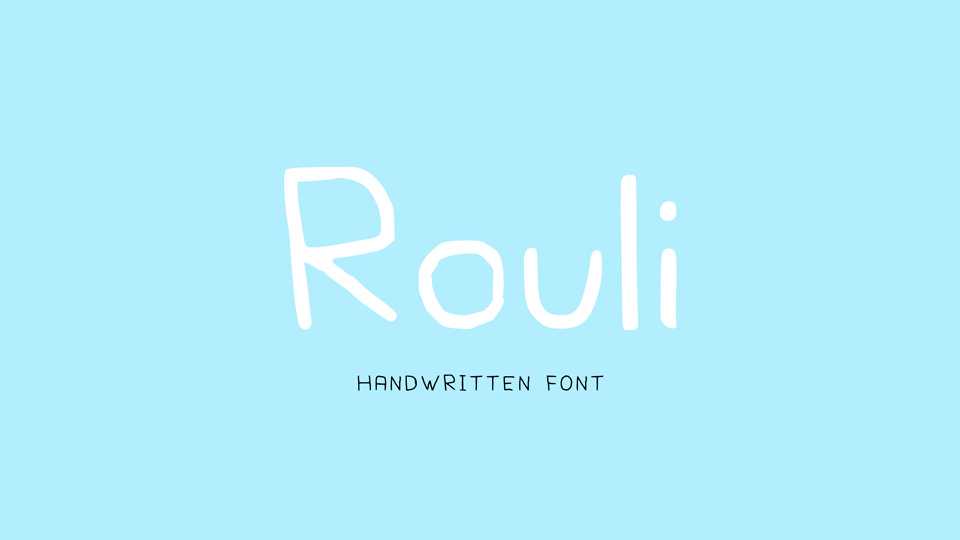
Download Rouli font, a simple and fun handwritten typeface. Rouli perfectly works for notes, quotes, cards, crafts, organic products, DIY projects and everything, that needs a natural feel.